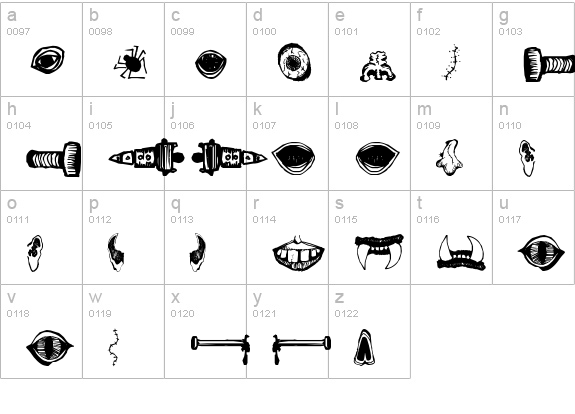
MonsterMasher Font Details
Introducing MonsterMasher font, a whimsical and playful typeface that is perfect for adding a touch of fun to your designs. This unique font features quirky shapes and bold lines that are sure to make a statement. Whether you're working on a project for children or simply want to inject some personality into your work, MonsterMasher is the perfect choice. The best part? MonsterMasher font is completely free to download at FontsMarket.com. So go ahead and unleash your creativity with this charming and eye-catching typeface. Whether you're designing posters, invitations, or social media graphics, MonsterMasher is sure to bring a smile to everyone's face. Download it today and start mashing up your designs with this fantastic font!